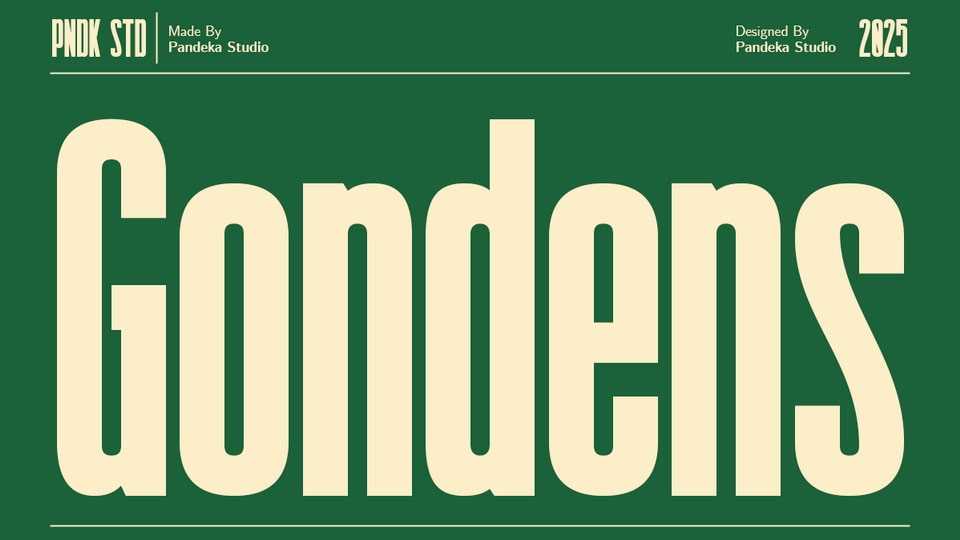
Download Gondens font, a bold condensed display typeface that combines retro charm with modern usability. Its tall, narrow letterforms deliver strong impact while saving space.